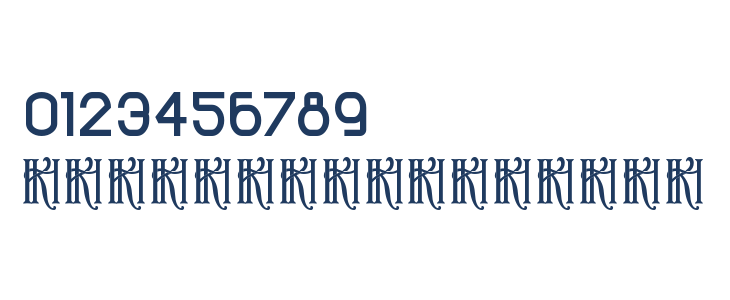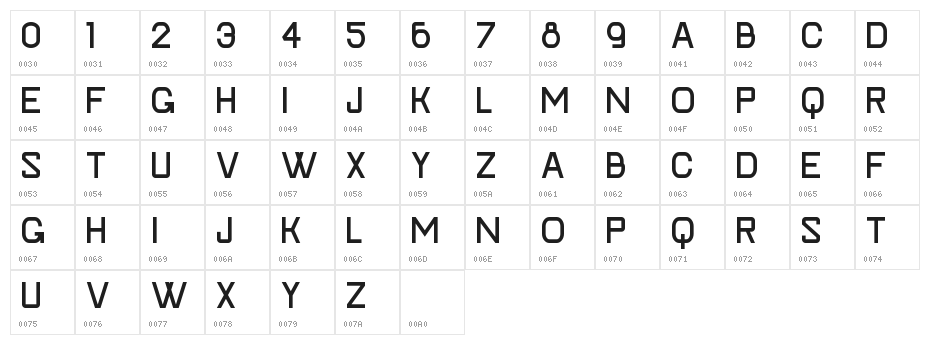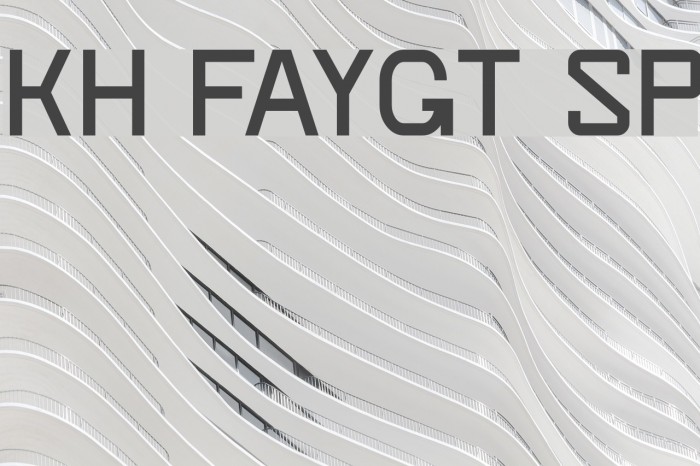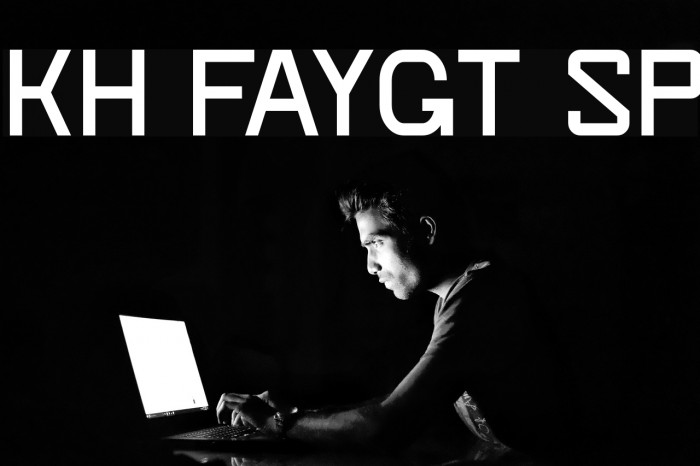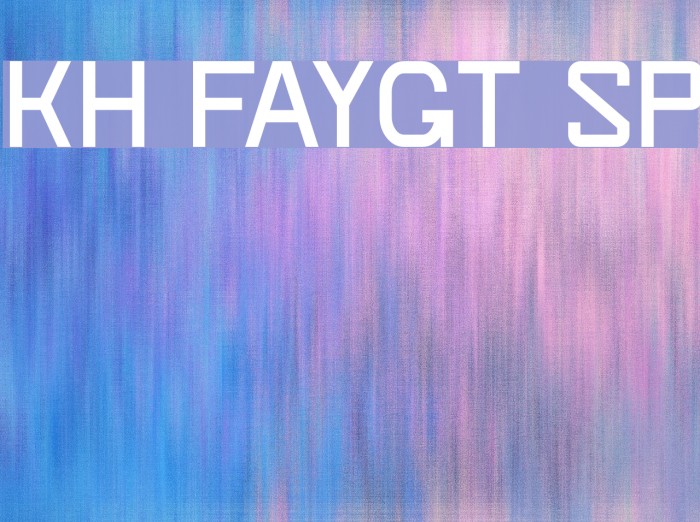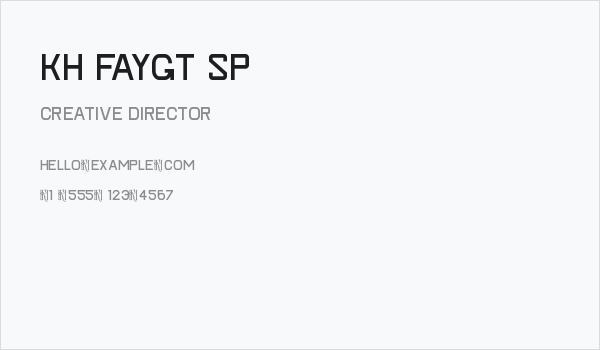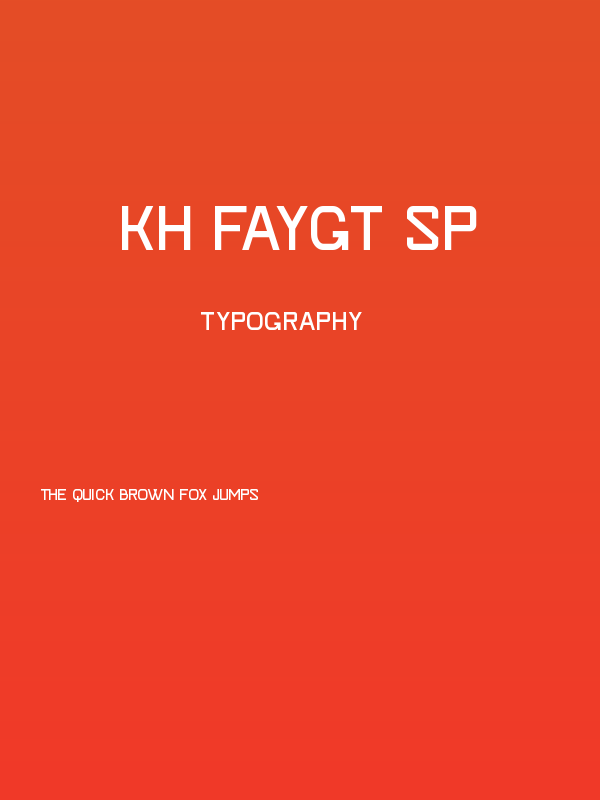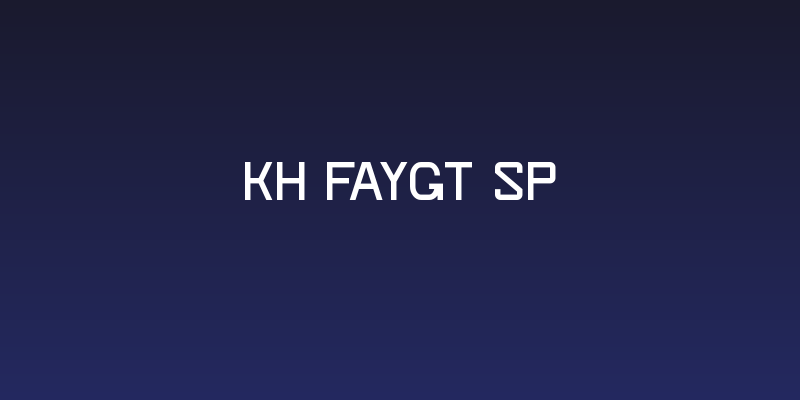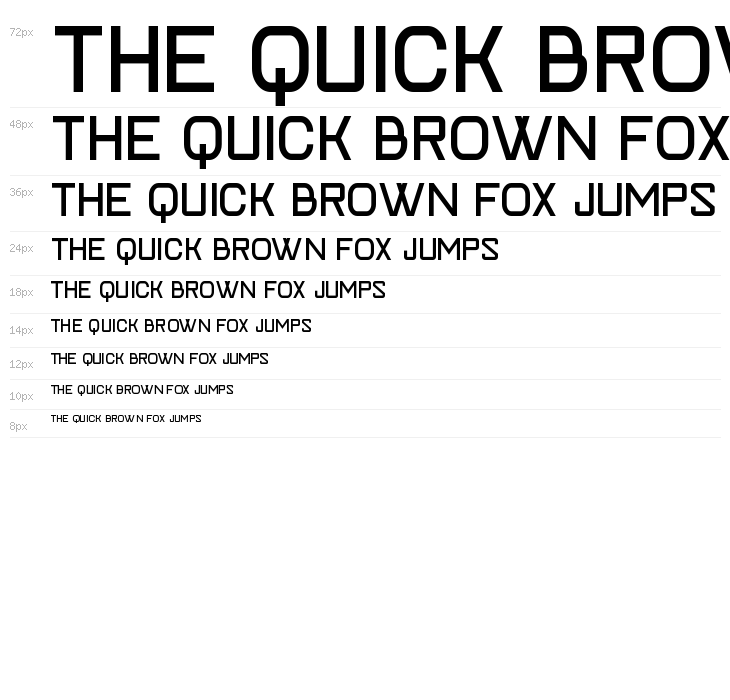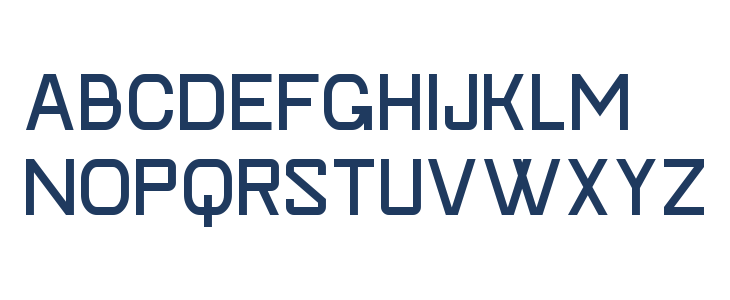
KH Faygt SP Font
KH Faygt SP Description
This font features a bold and modern design with a geometric structure. The uppercase letters are uniform in height, with sharp angles and clean lines that give it a contemporary feel. The lowercase letters maintain the same geometric style, ensuring consistency throughout. The numerals are distinct and easy to read, following the same design principles as the letters. The special characters are well-integrated, maintaining the overall aesthetic. This font is versatile and can be used in various design projects that require a modern and bold appearance.
| Proposed Projects | Ideal for branding, advertising, headlines, and digital media projects. |